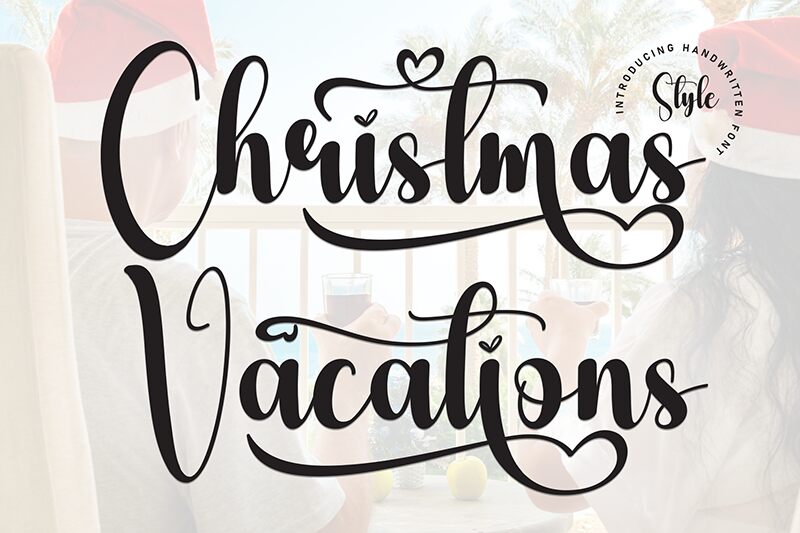
Christmas Vacations
Christmas Vacations font by Scratchones is an elegant brush font with a decorative and flowing script style. Its ornamental elements and festive vibe capture the spirit of the holiday season, all while maintaining a classic aesthetic. Capture your audiences’ attention with its unique designs as they can prove ideal for any projects that require a jolly touch.
This free handwritten font works wonderfully in Christmas cards, movies posters, and advertisements. Use it freely for invitation or greeting cards, book covers, wrapping papers, wish lists for Santa Claus or ornaments meant to decorate them. Enjoy its flowing lines on coffee shop items or billboard signs that call customers in from the cold too!